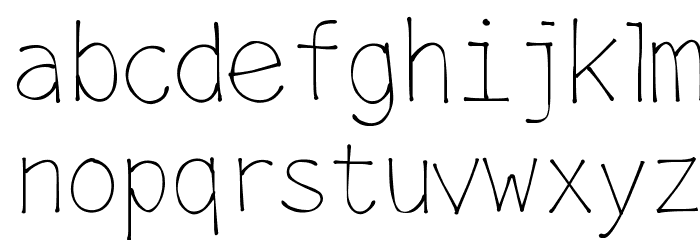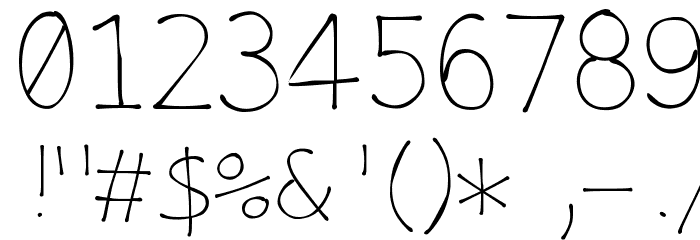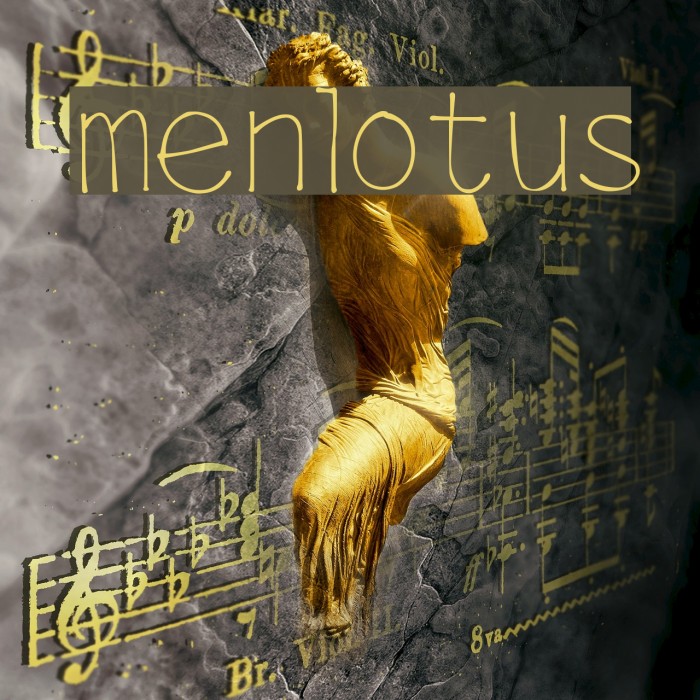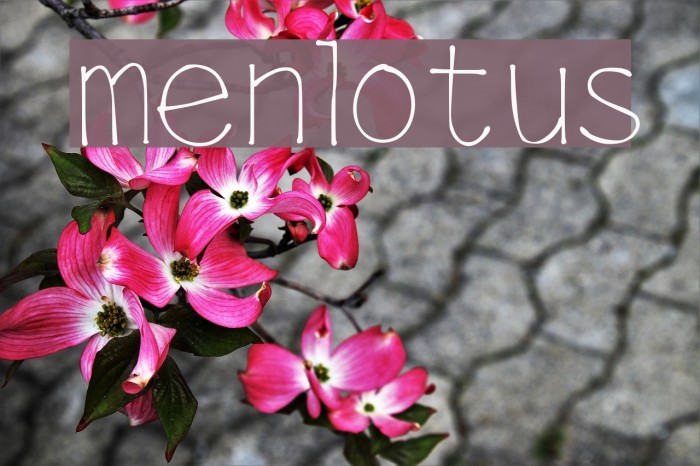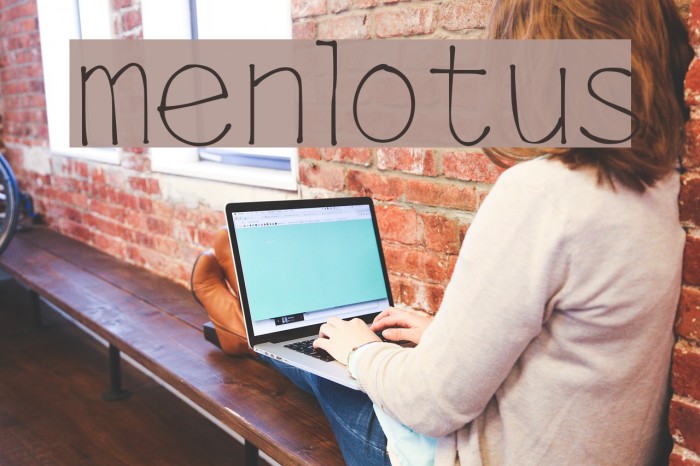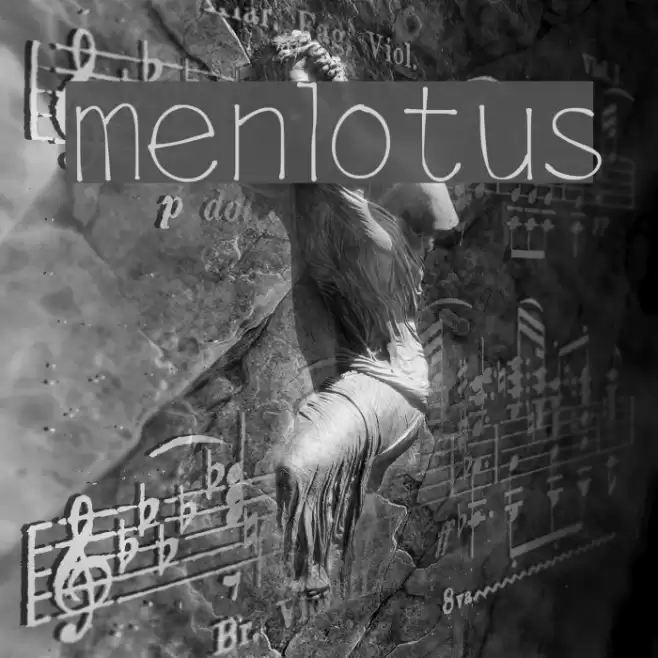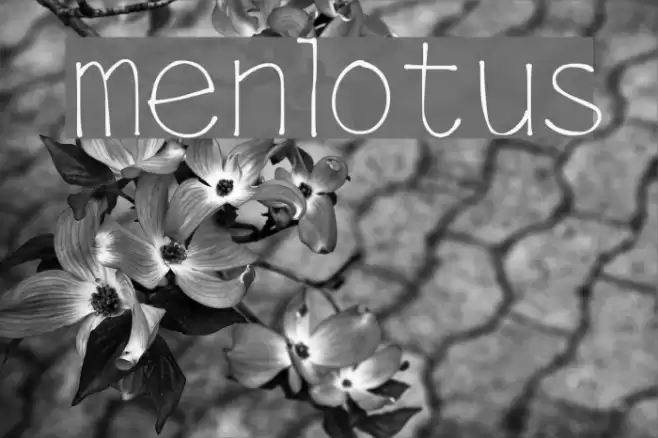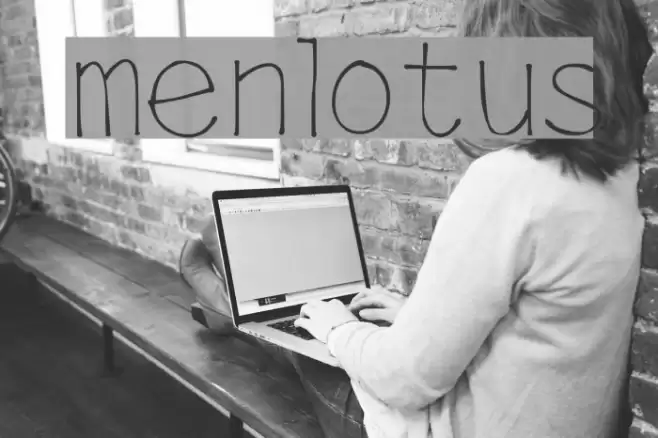
menlotus Font
This font features a playful and casual handwritten style, characterized by its irregular strokes and slightly uneven baseline. The letters have a whimsical appearance, with a mix of rounded and angular forms, giving it a friendly and approachable feel. The uppercase and lowercase letters maintain a consistent style, while the numerals and special characters complement the overall design. The font's simplicity and charm make it suitable for informal and creative projects.
A playful handwritten font with irregular strokes and a whimsical appearance.
- Proposed Projects: Ideal for children's books, greeting cards, casual invitations, and creative branding.
- Overall Style: Casual
- Use Case: Headlines, Informal text, Creative projects